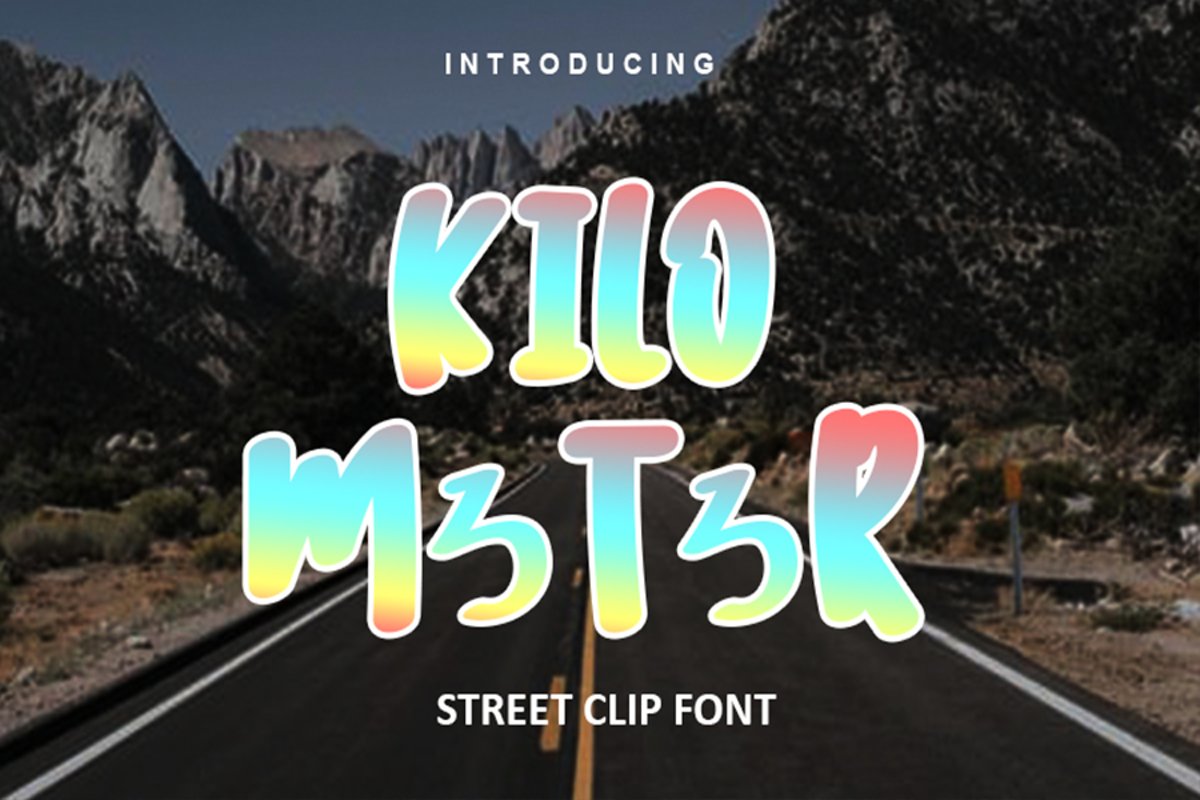
Kilometer
KILOMETER
Kilometer is a unique and casual display font with an incredibly friendly feel. Whether you’re looking for fonts for Instagram or calligraphy scripts for DIY projects, this font will turn any creative idea into a true piece of art!